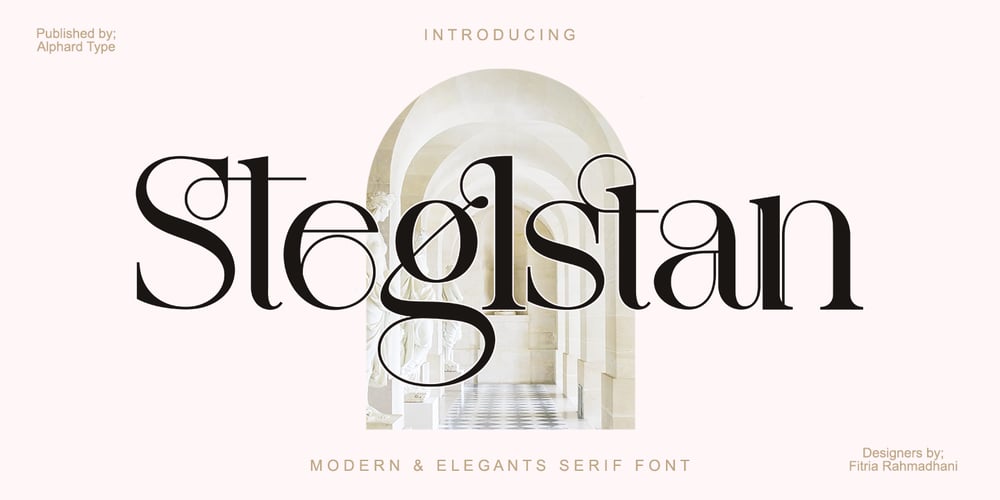
Steglstan Font Family was designed by Fitria Rahmadhani and published by Alphard Type. Steglstan contains 2 styles and family package options. Steglstan is a luxurious serif with an elegant style. It seduces your eyes with its curves yet manages to maintain its classy serenity, perfect for your branding, logos, invitations, long texts and more.FEATURES: OpenType support Playful to use (with ligatures options) Multilingual support PUA Encoded If you need support or more information about this item, please kindly contact me: alphardtype@gmail.comThank you so much…I really hope you enjoy when using it!